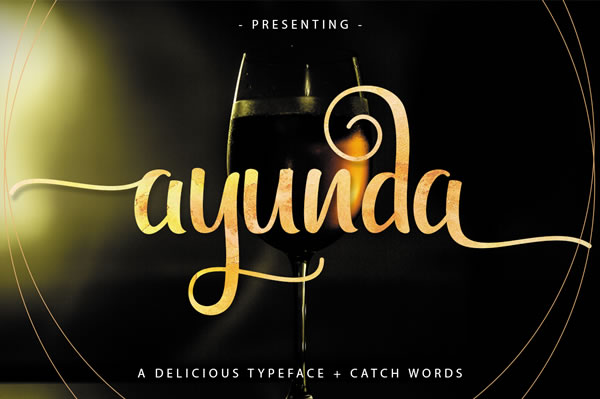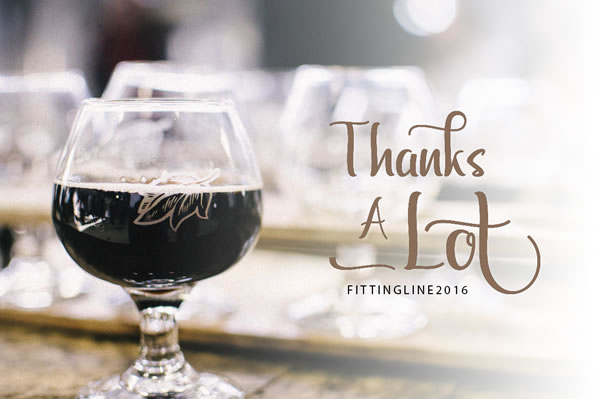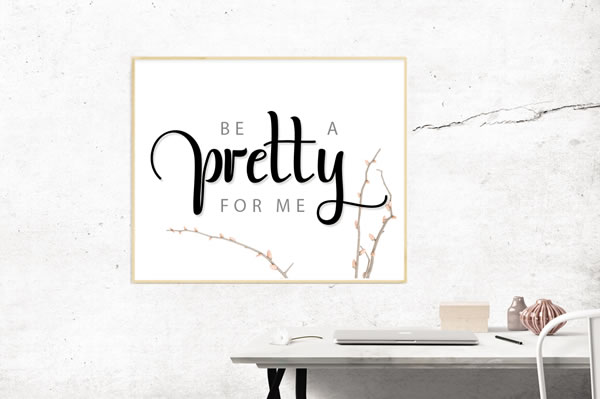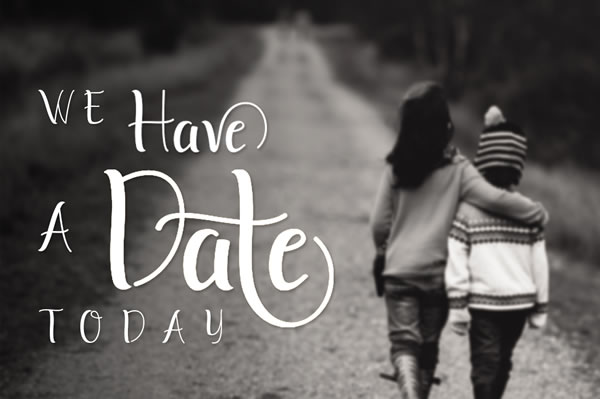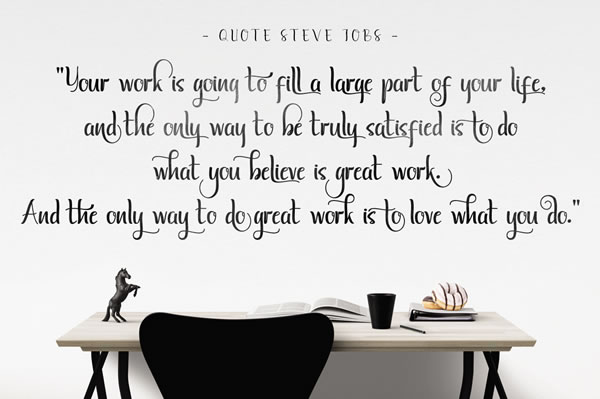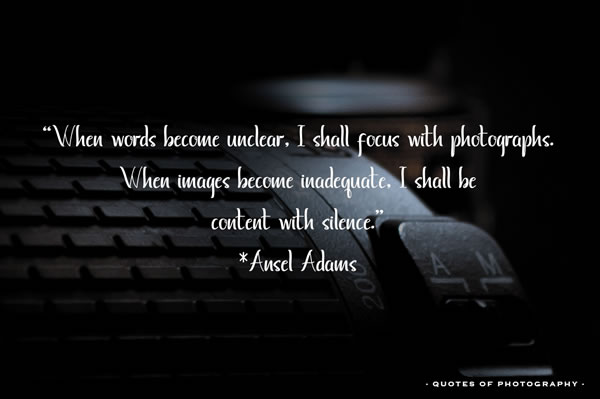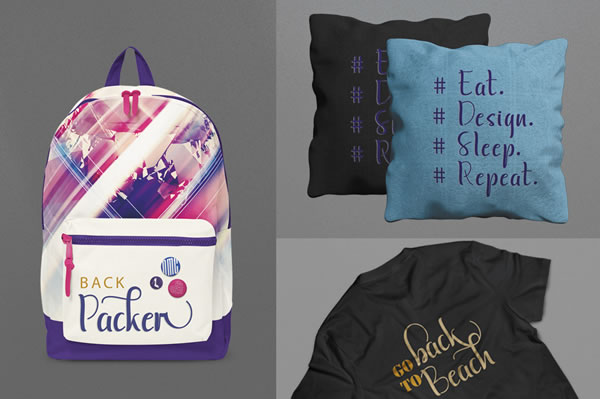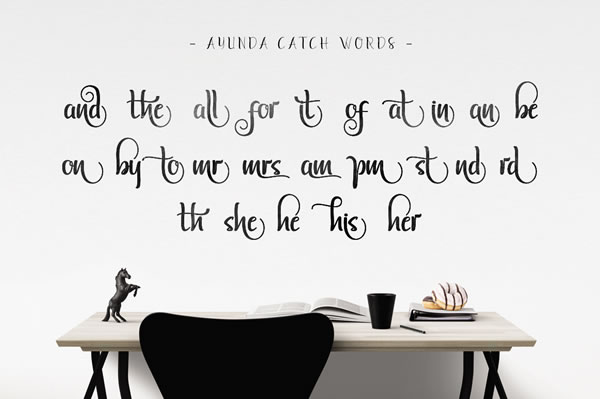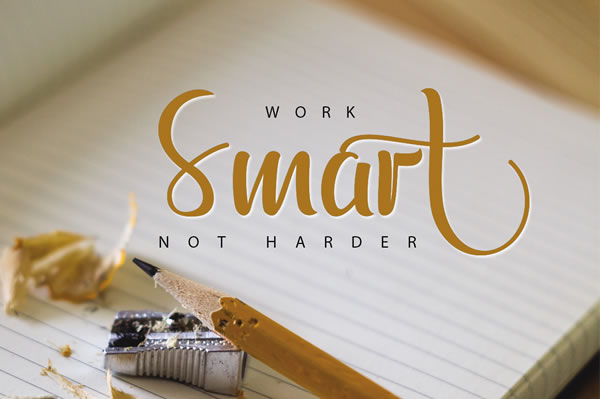
Ayunda Font
About Ayunda Font
Ayunda is a handwritten font with a casual style.
It features 337 unique glyphs including catch words which makes it a fun font to create unique designs.